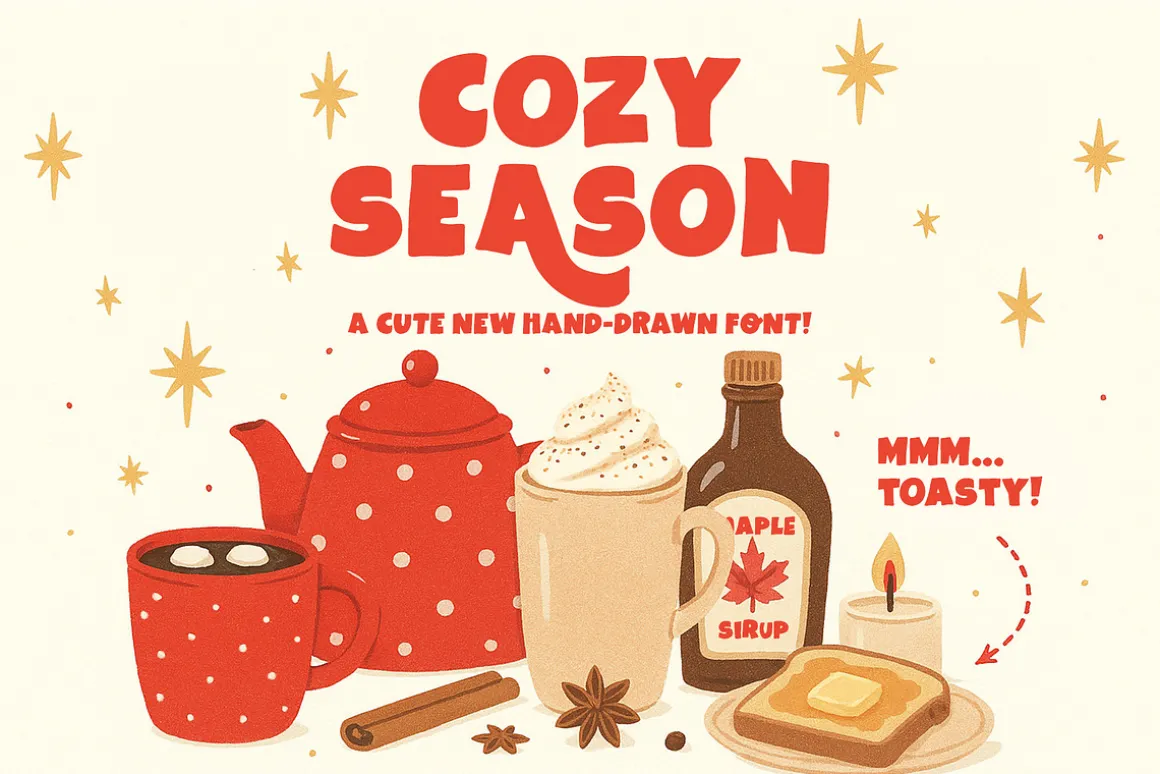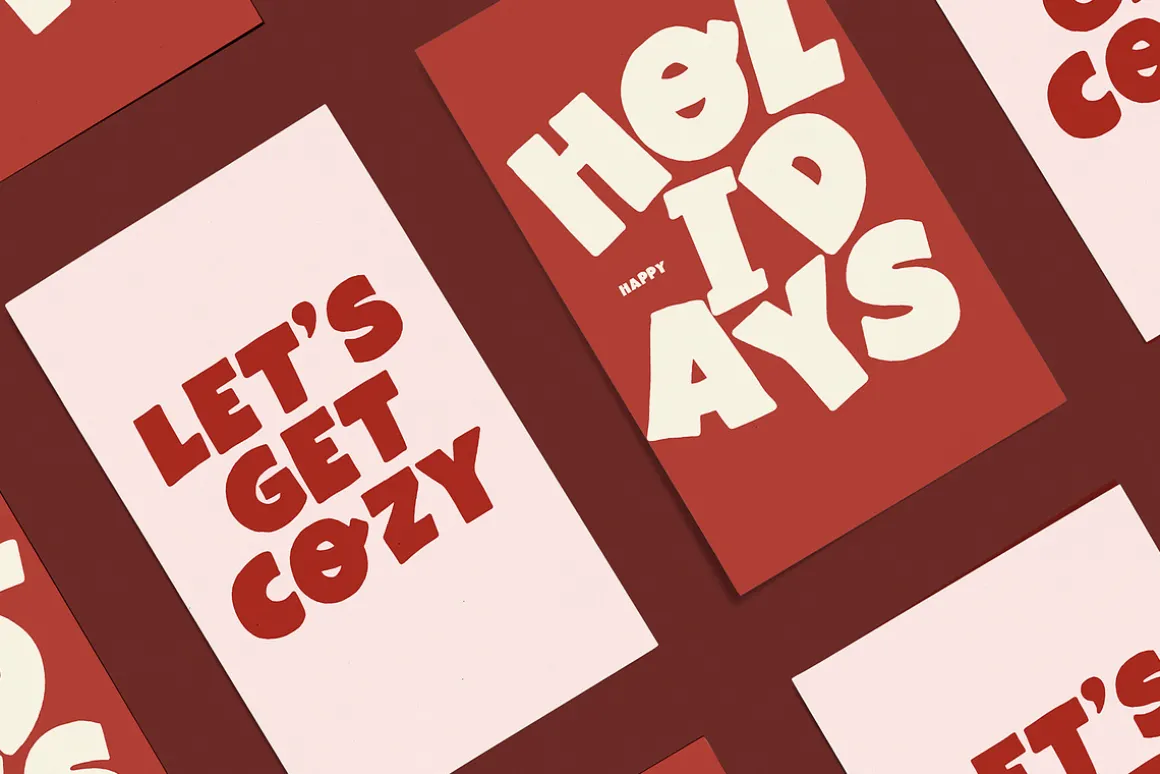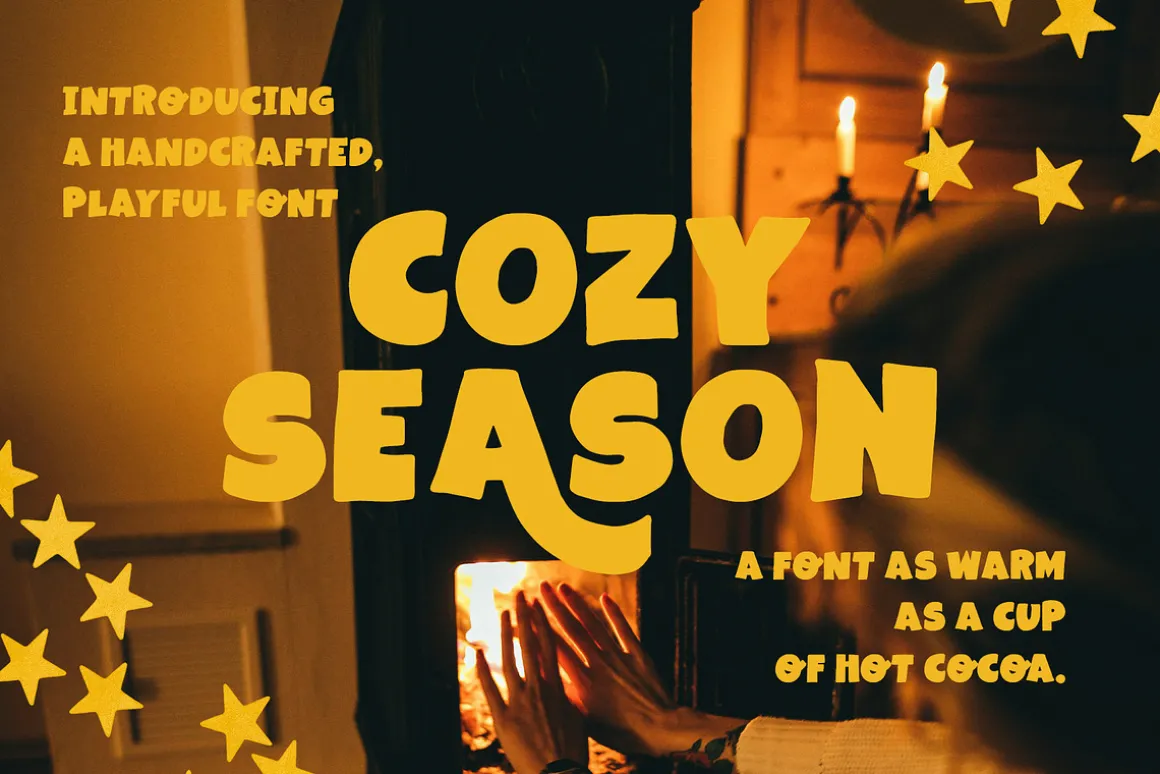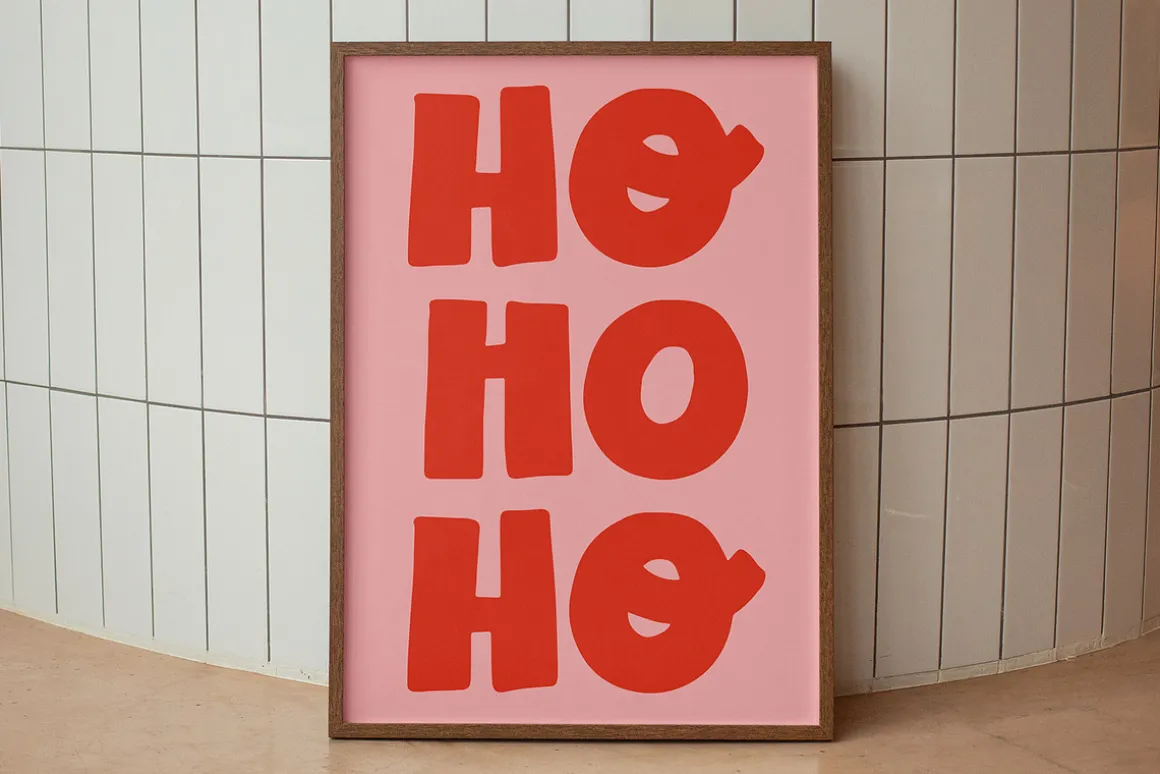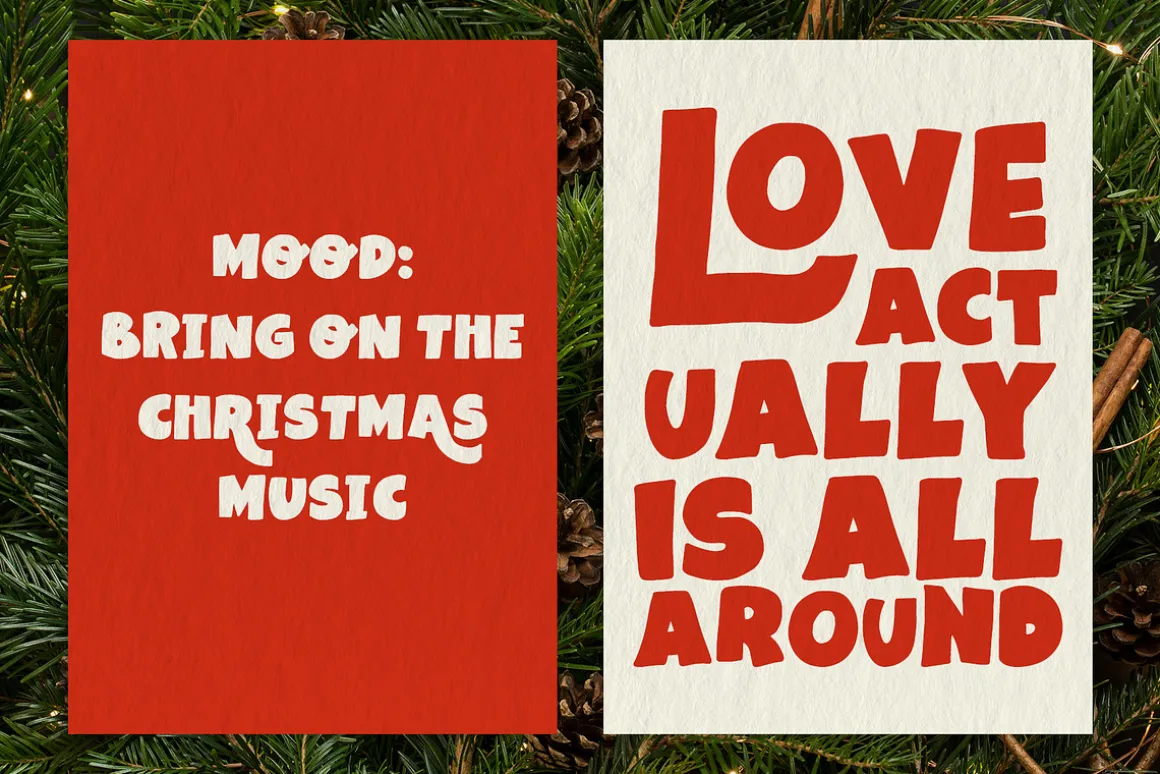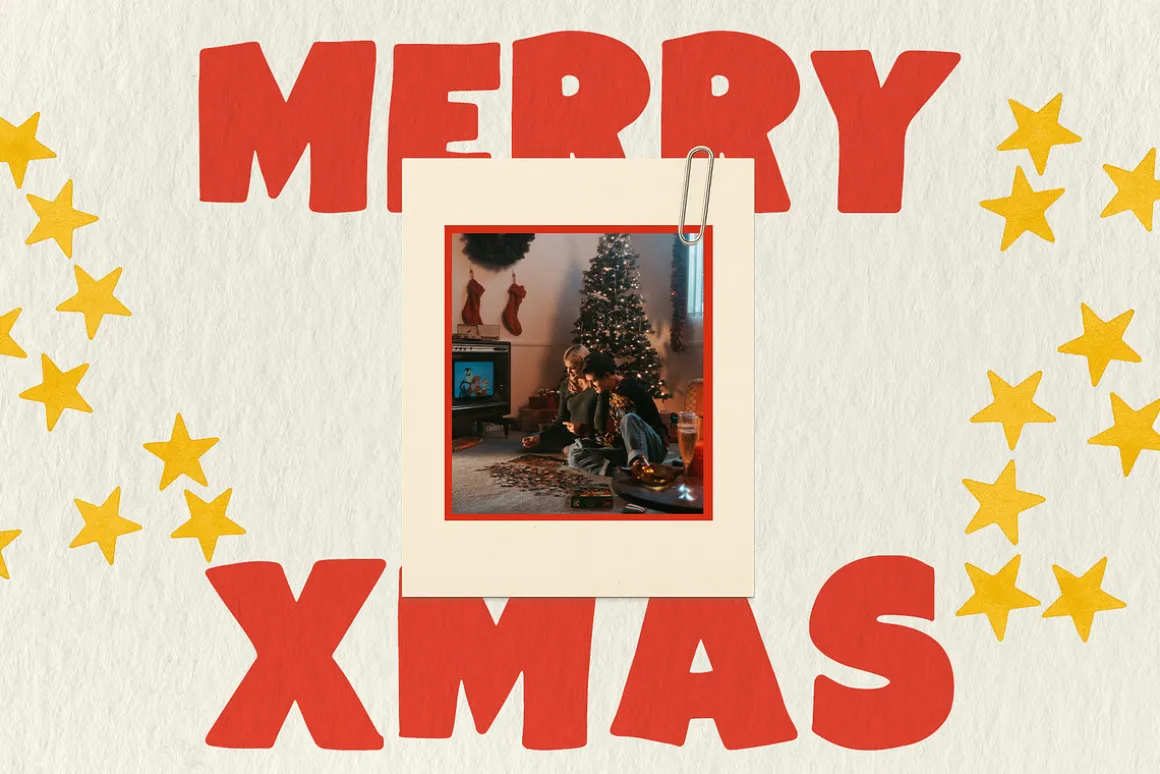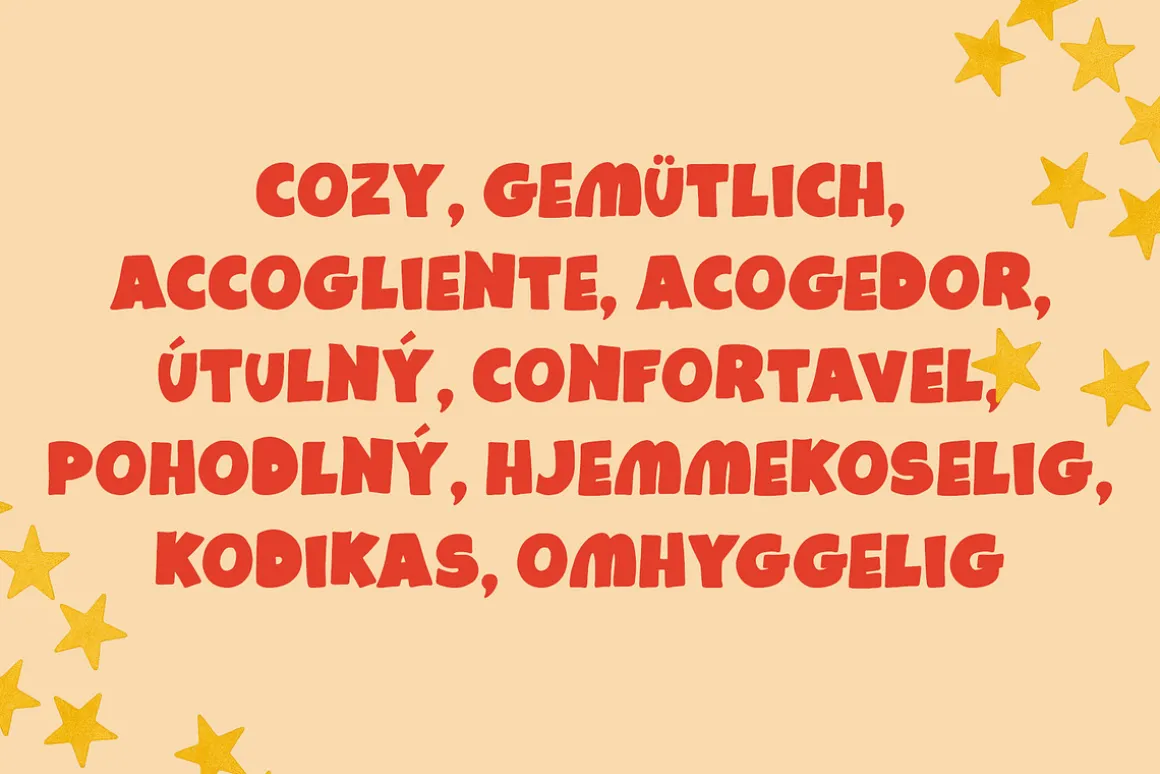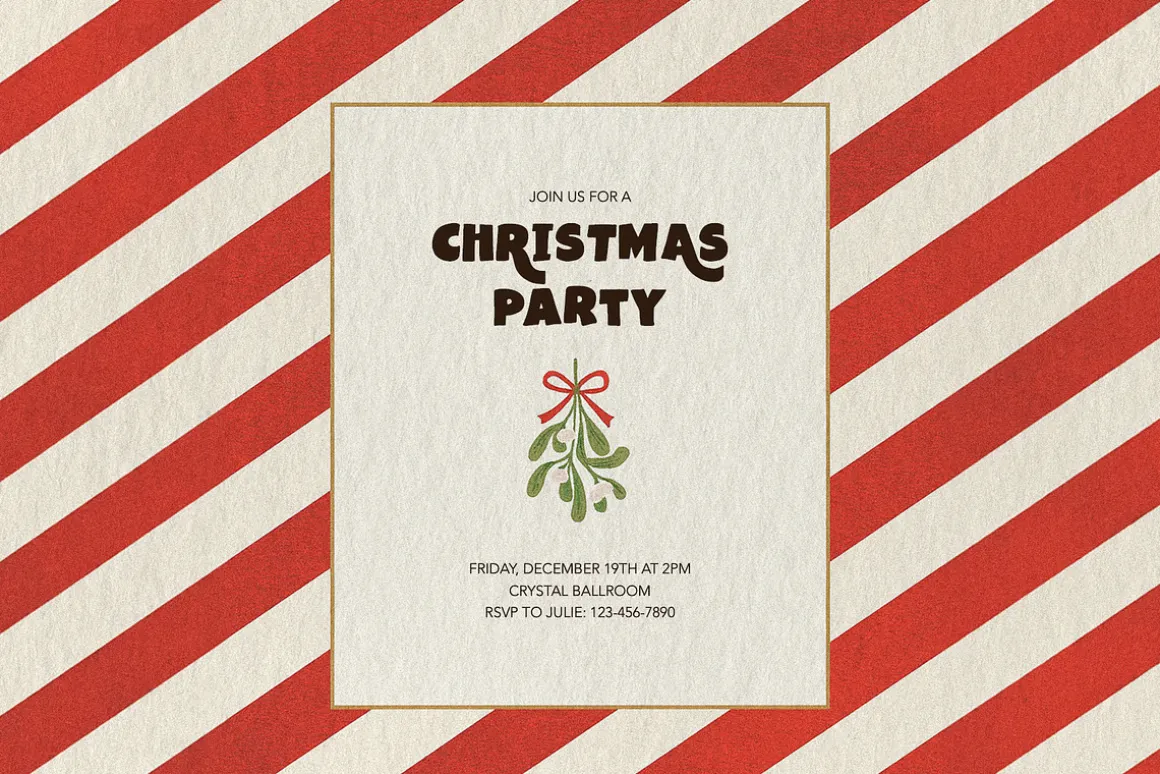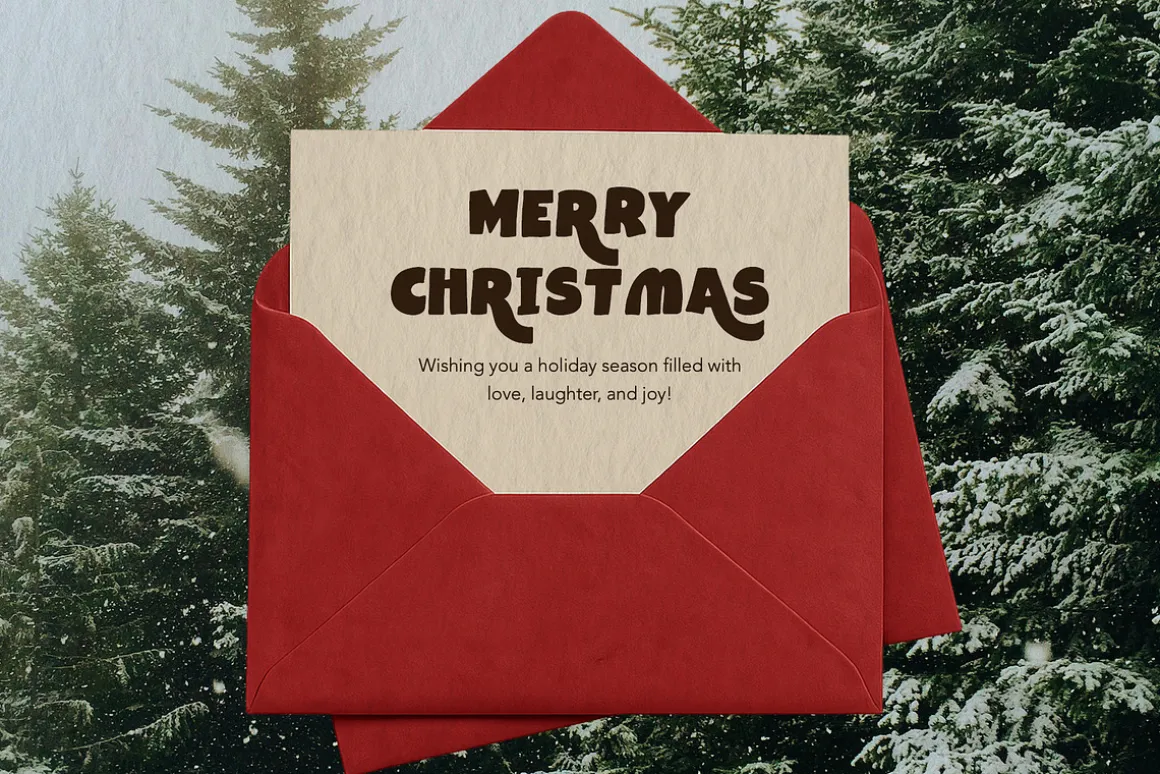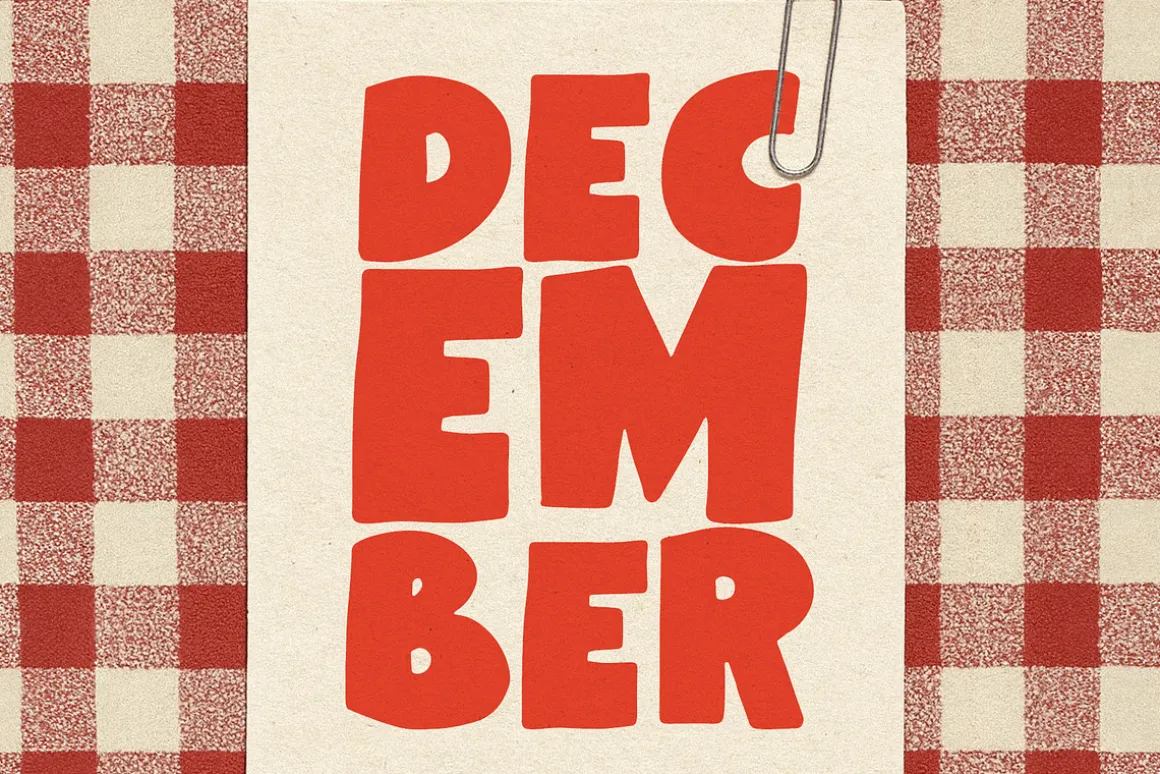
Cozy Season – a warm and charming hand-drawn font for all your cozy winter designs.
Cozy Season is a cute, playful, fully hand-drawn typeface created to bring warmth and comfort to your seasonal projects. Its soft curves, rounded shapes, and naturally imperfect strokes make every word feel homey – like a handwritten note in your favourite winter journal.
Perfect for:
- Christmas cards & holiday invitations
- Seasonal posters and illustrations
- Packaging, labels, and handmade products
- Cozy branding for cafés, candles, bakeries, crafts
- Social media graphics, Pinterest pins, blog headers
- Kids’ designs, cute quotes, lettering artworks
- Smooth, friendly handmade lettering style
Cozy Season instantly adds a warm, festive atmosphere to any design. Whether you’re creating winter graphics or building a cute holiday brand, this font will make your project feel extra toasty and inviting.